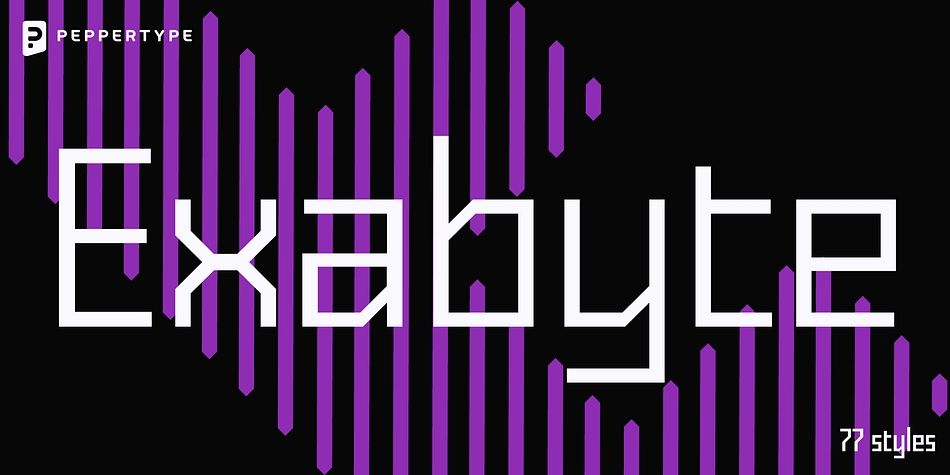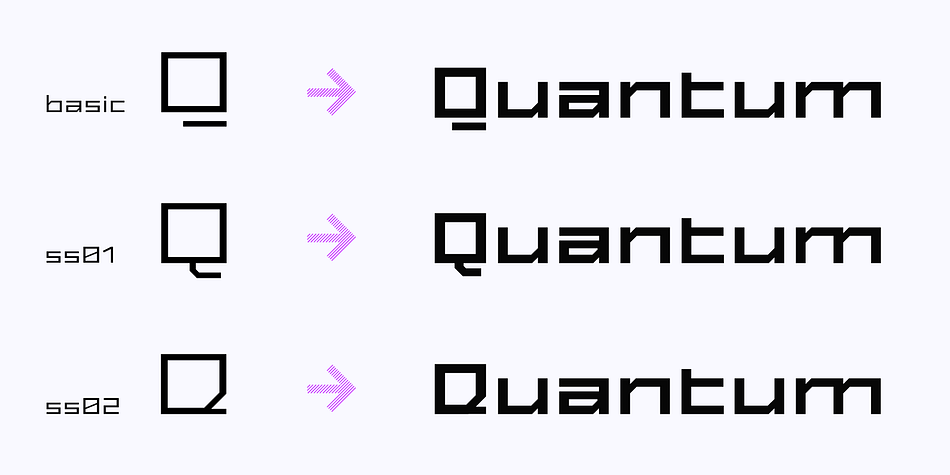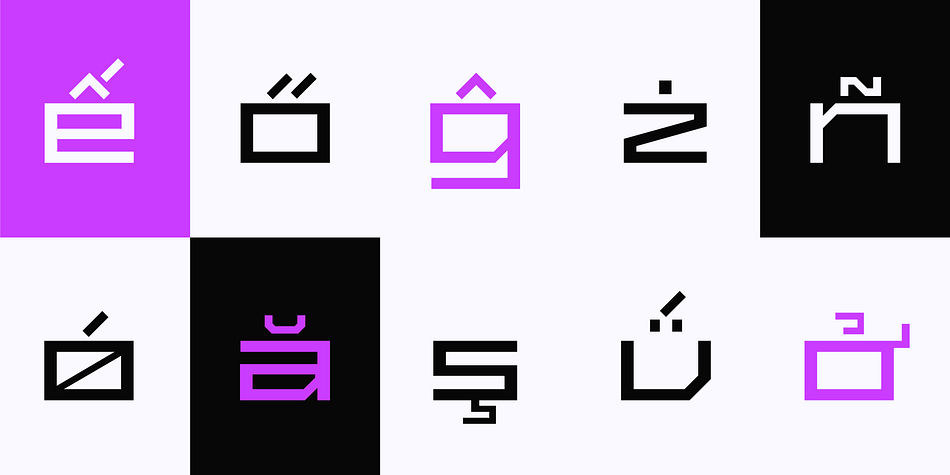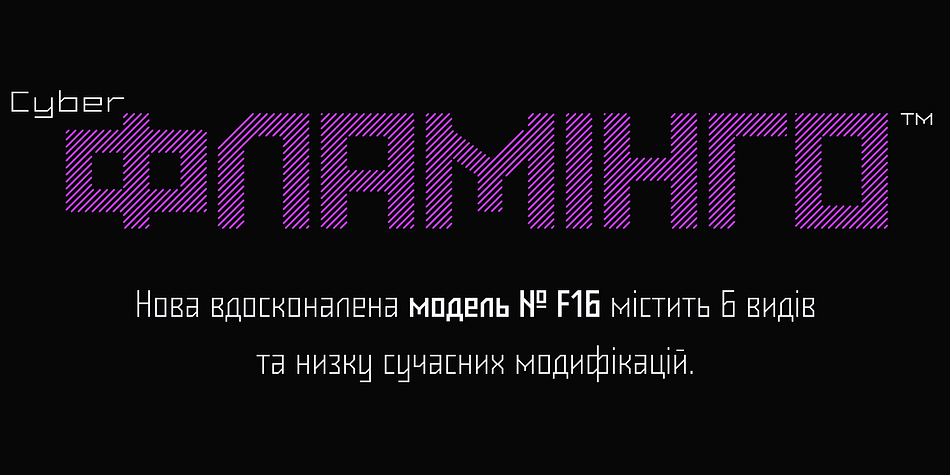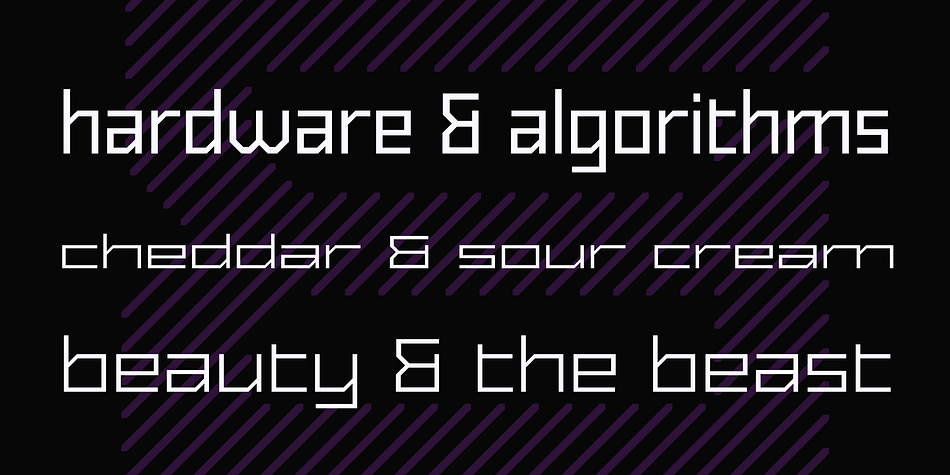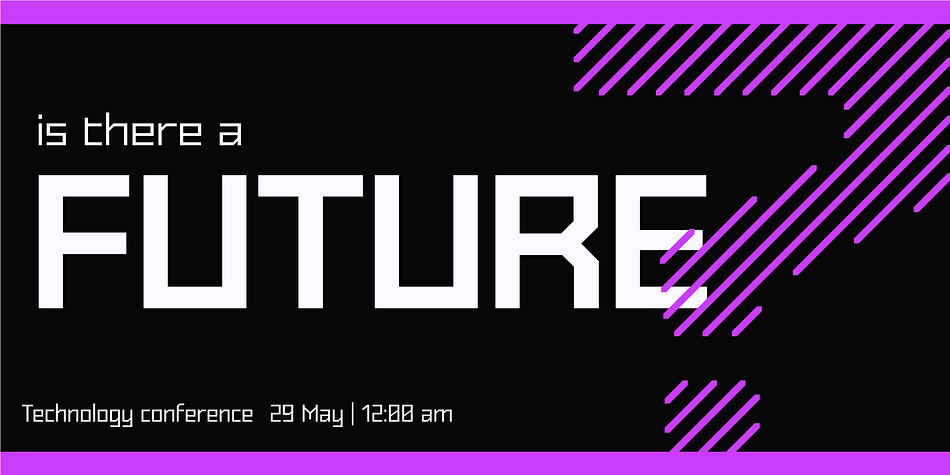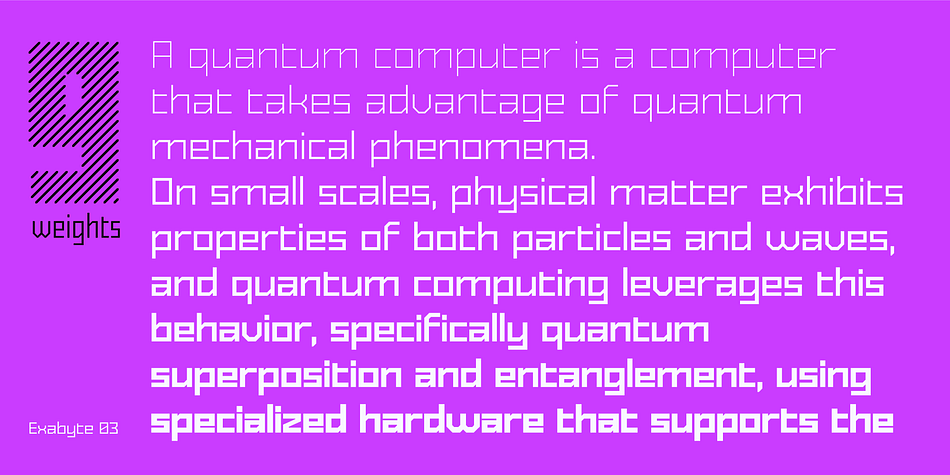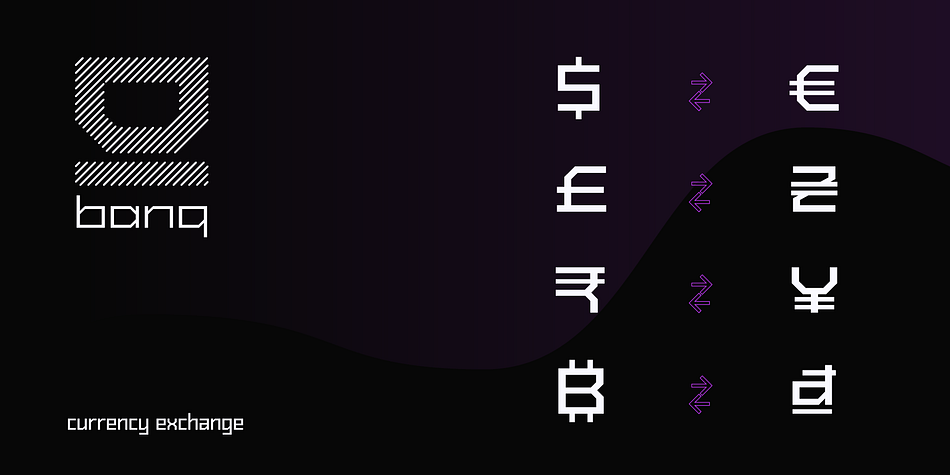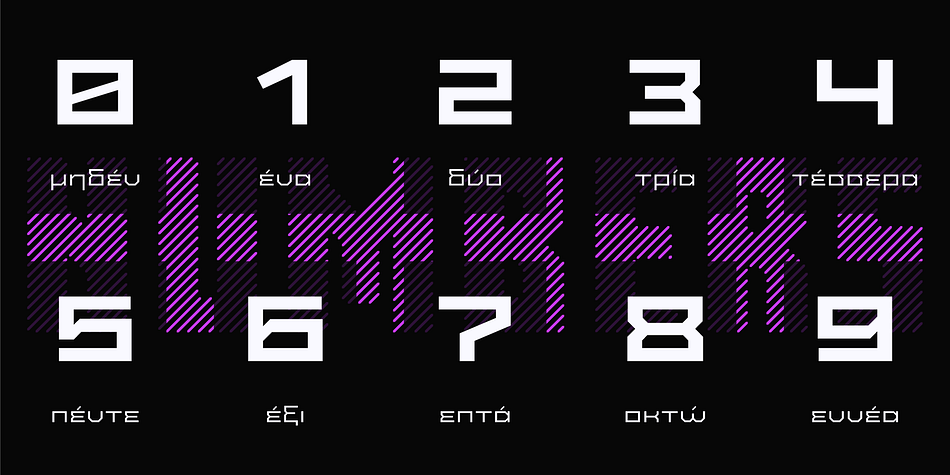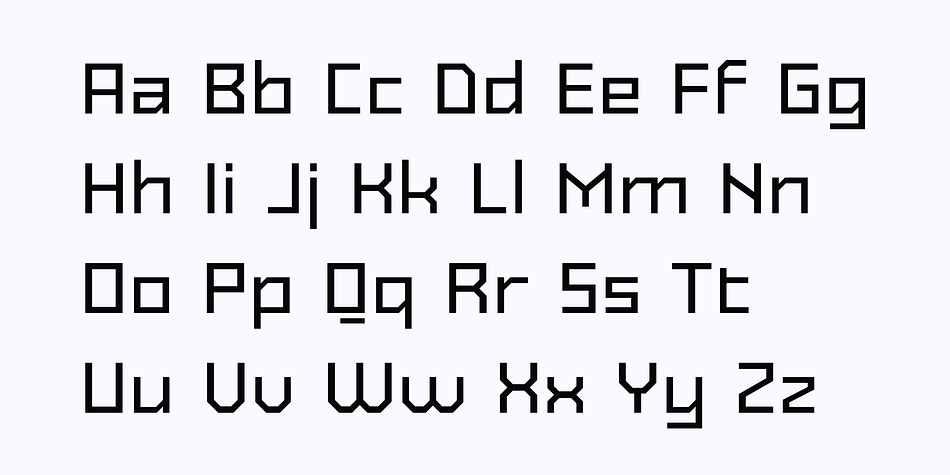
Exabyte
Exabyte is a display sans font family. This typeface has seventy-seven styles and was published by Pepper Type.
Exabyte is a modular display sans-serif prevailed by 90º angles. Its 63 plain styles consist of 7 widths and 9 weights. Each heaviest weight also comes in Outline and Engrave styles (non-layerable) in all 7 widths, bringing the overall style count to 77.
The font family supports Latin, Greek, and Cyrillic character sets as well as many OpenType features indispensable for modern typesetting.